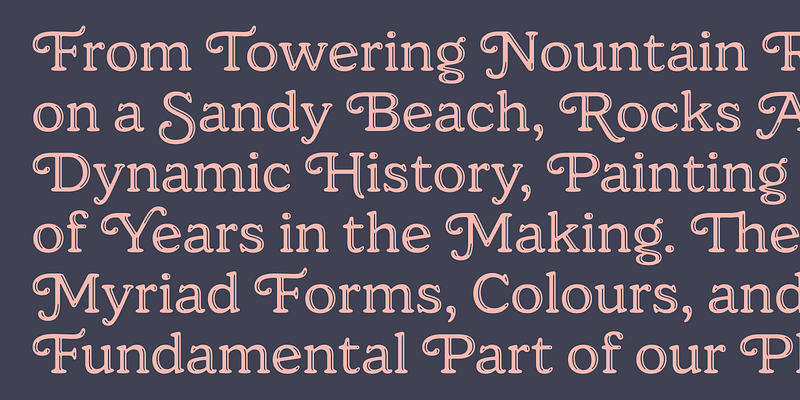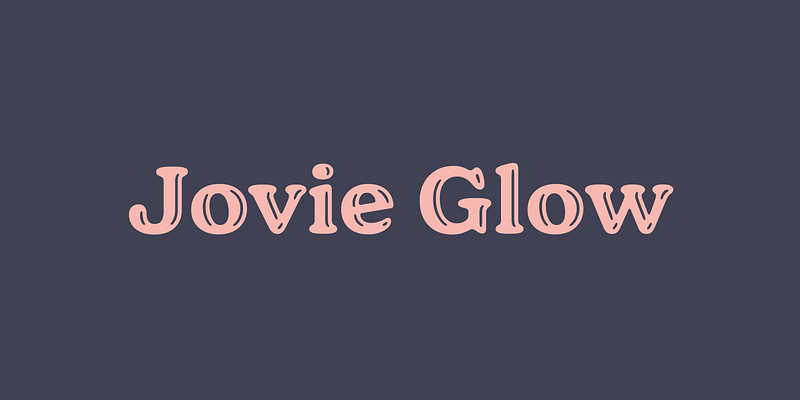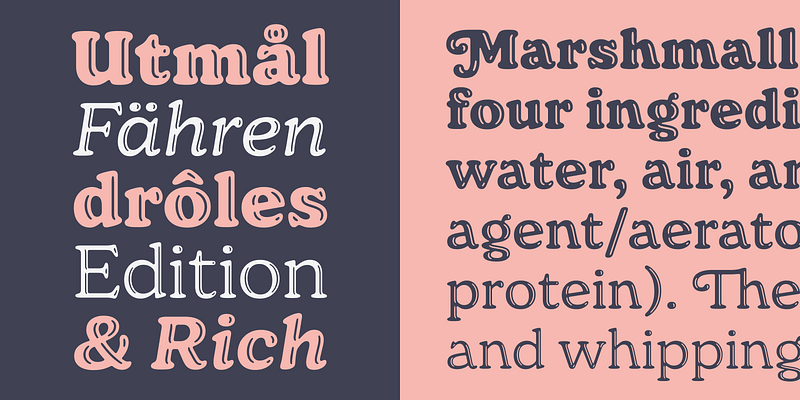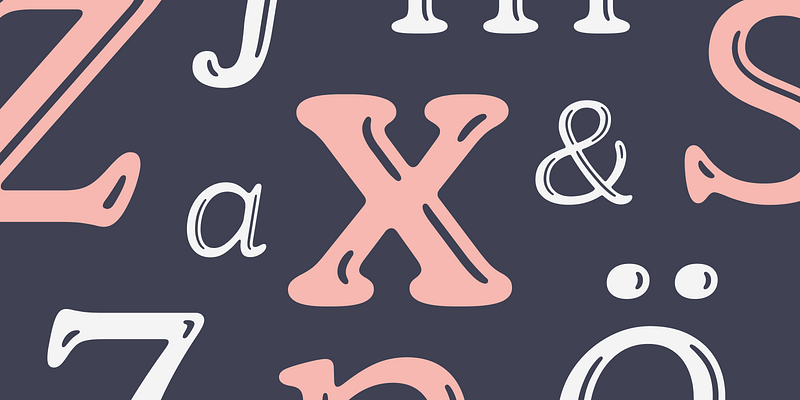
Jovie Glow is a delicious soft-serif typeface, featuring playful Italics, swashes, ligatures, expressive alternates, and an eye-catching style. Jovie Glow shines in text and display settings, offering warmth and elegance.